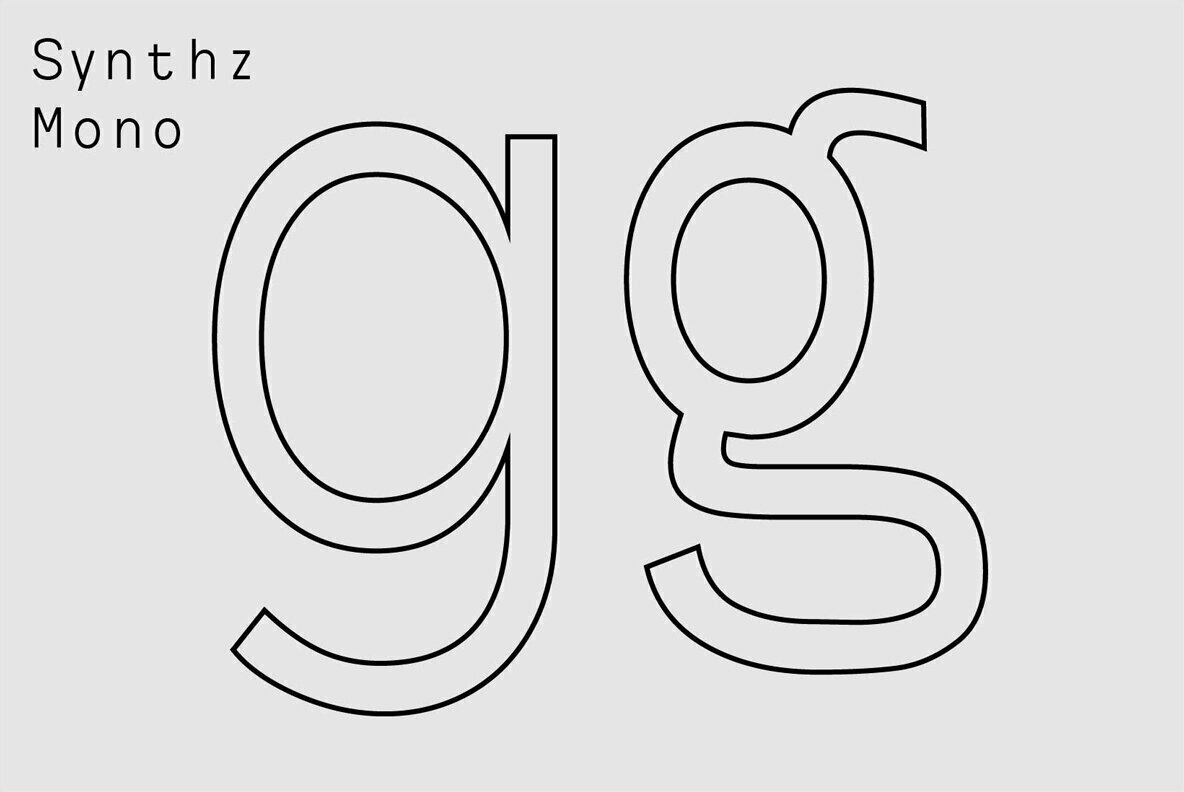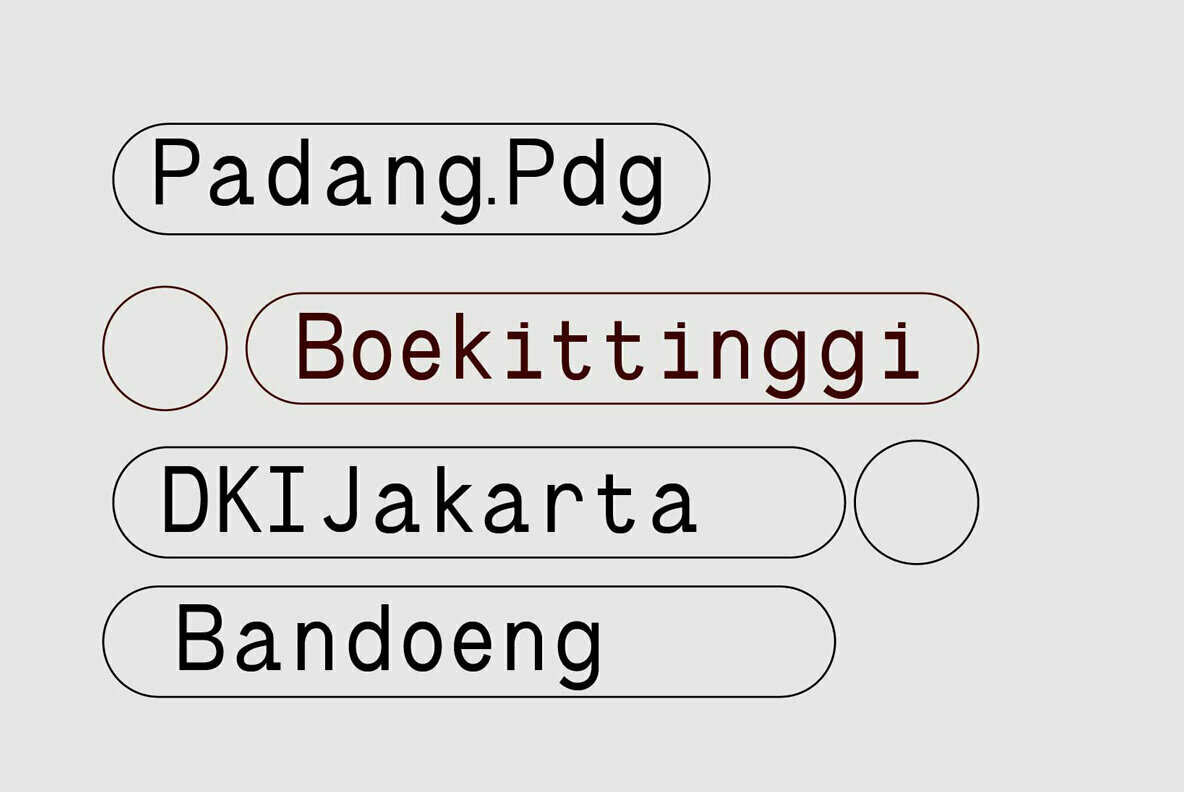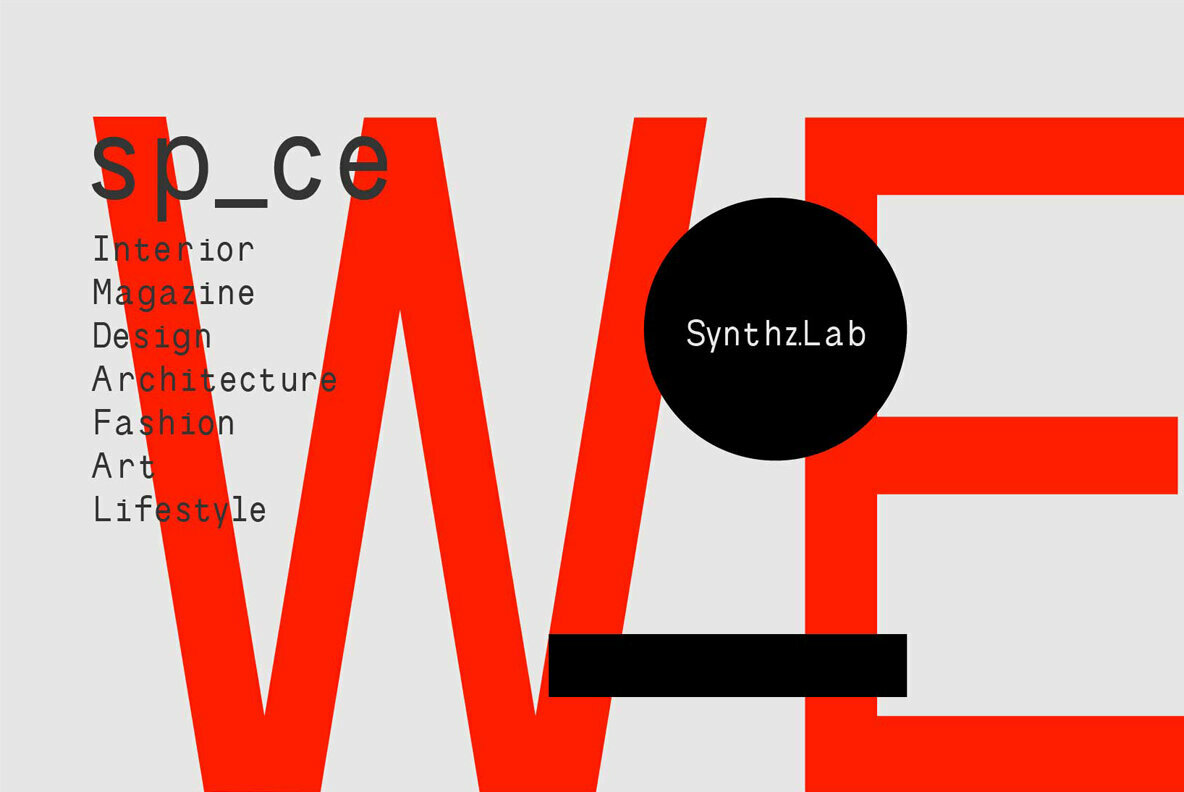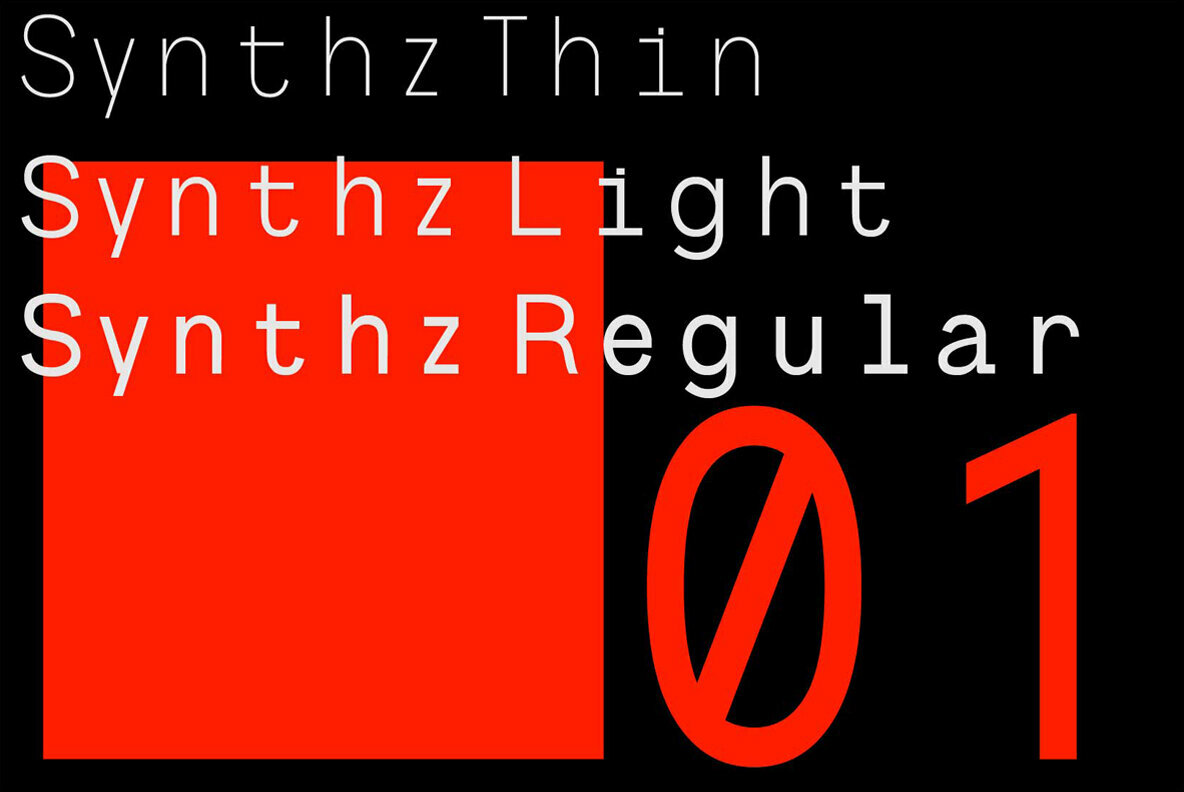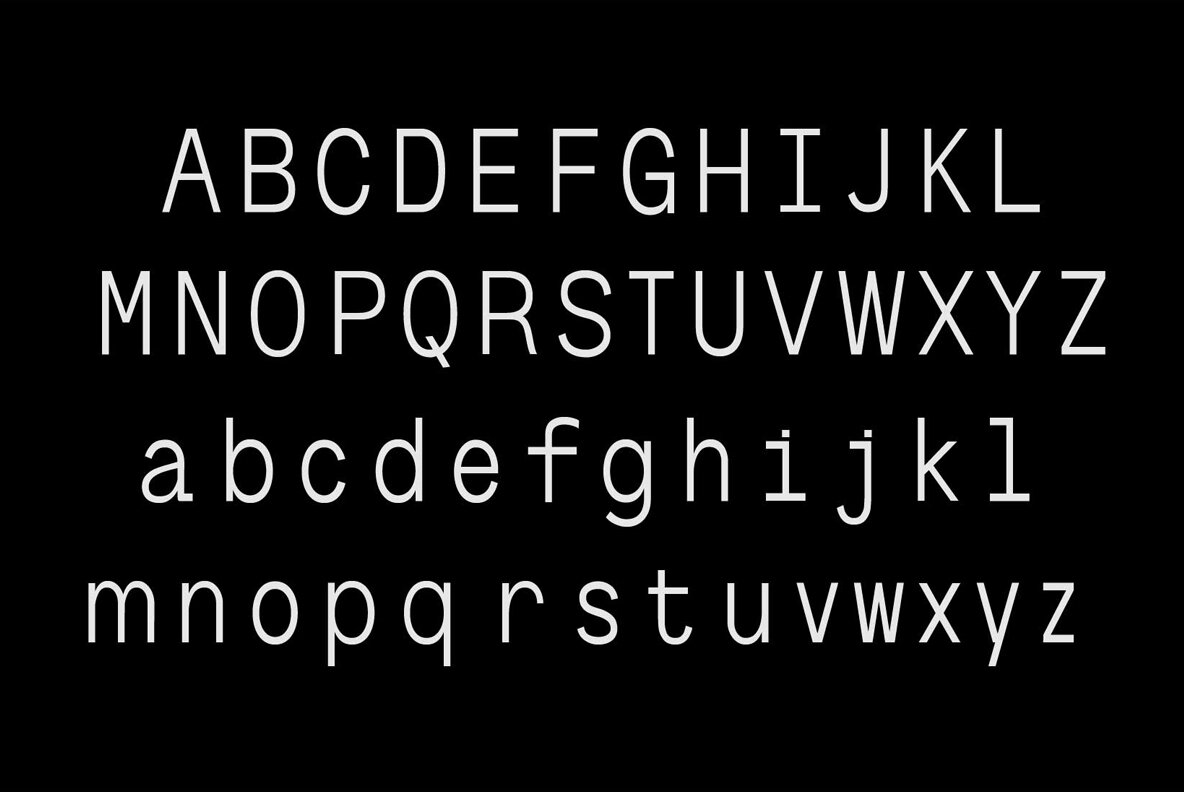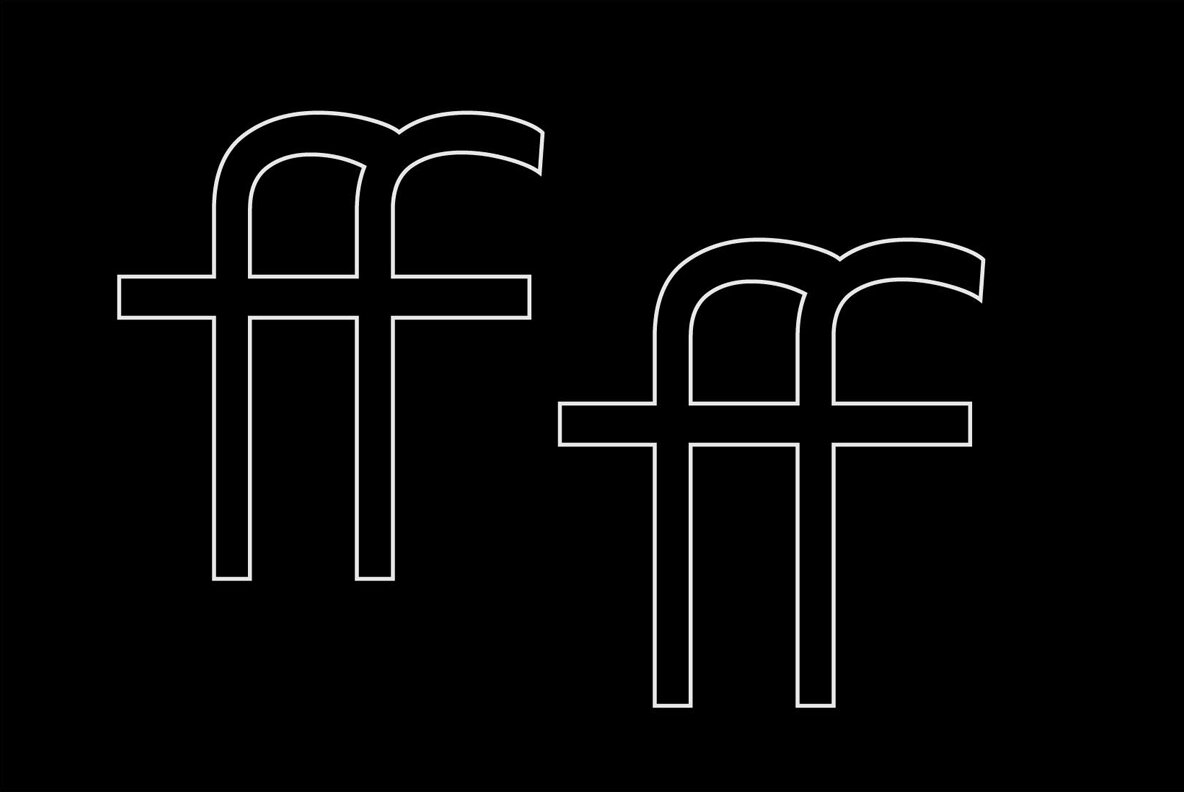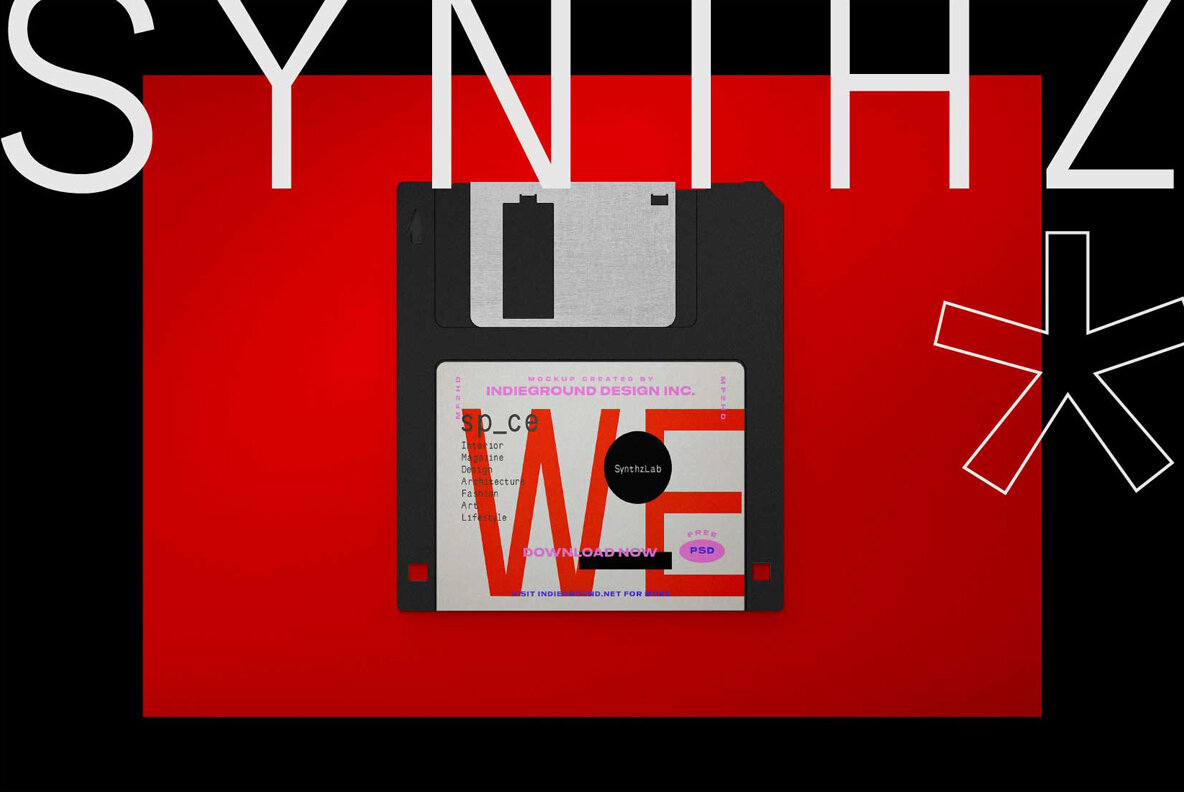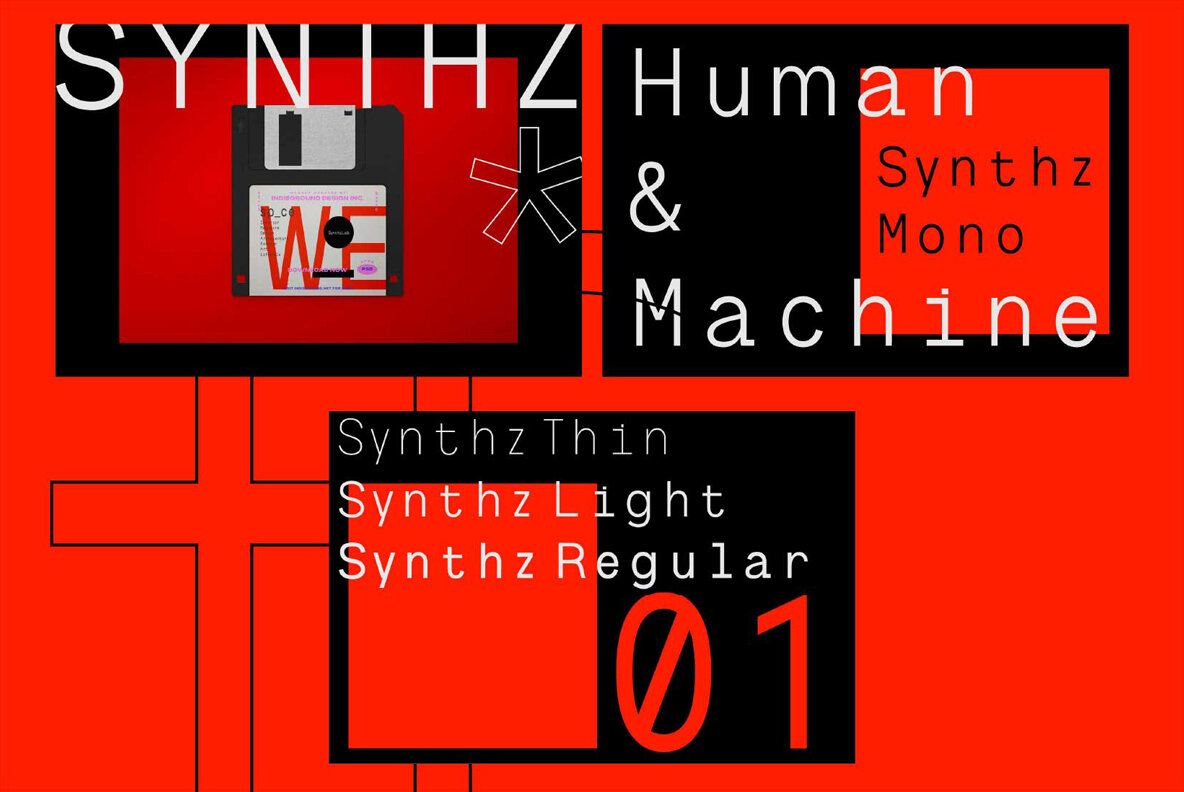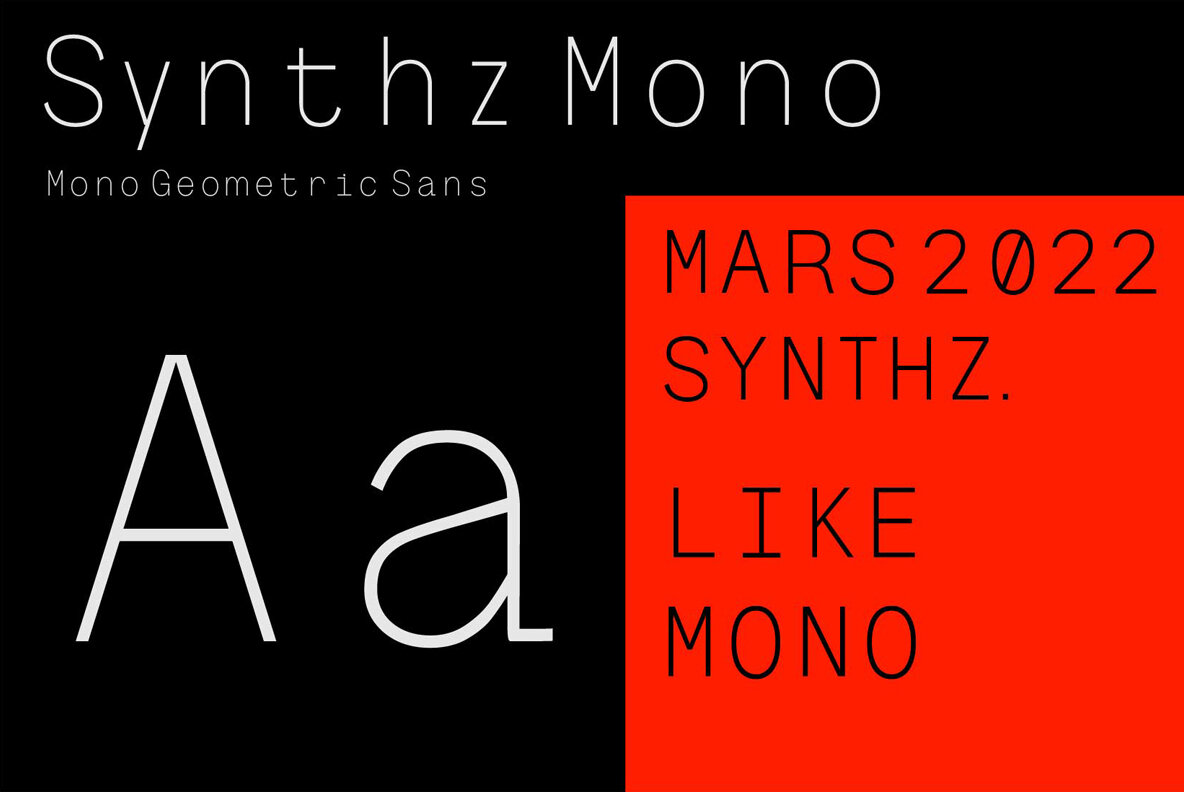
Synthz Mono Font
Synthz Mono is based on the successful Basier font family. Inspired by International Style, is a neo-grotesque sans serif typeface available. The result is a modern, neutral font family suitable for logo types, branding, editorial design, as well as web and screen designs.